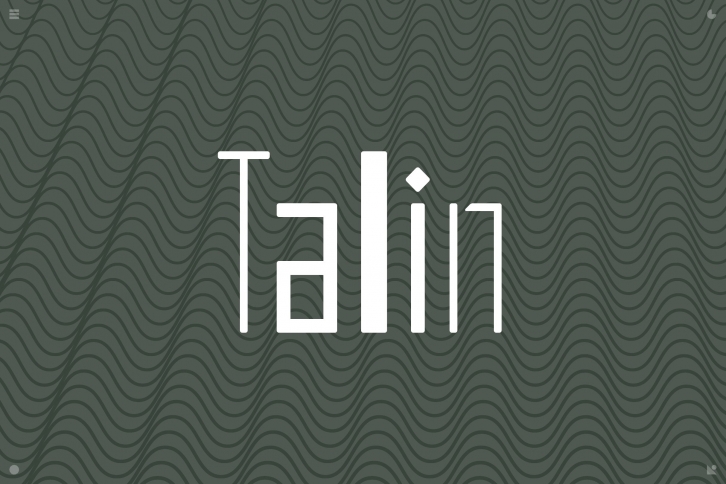
Talin is a radically simplified sans serif.
It was inspired by old handwritten signs. Since the first digital version had lost all of the organic flavor, all the edges then got a bit rounded. Talin is meant for striking designs.
- vast coverage of latin languages (200+)
- four weights